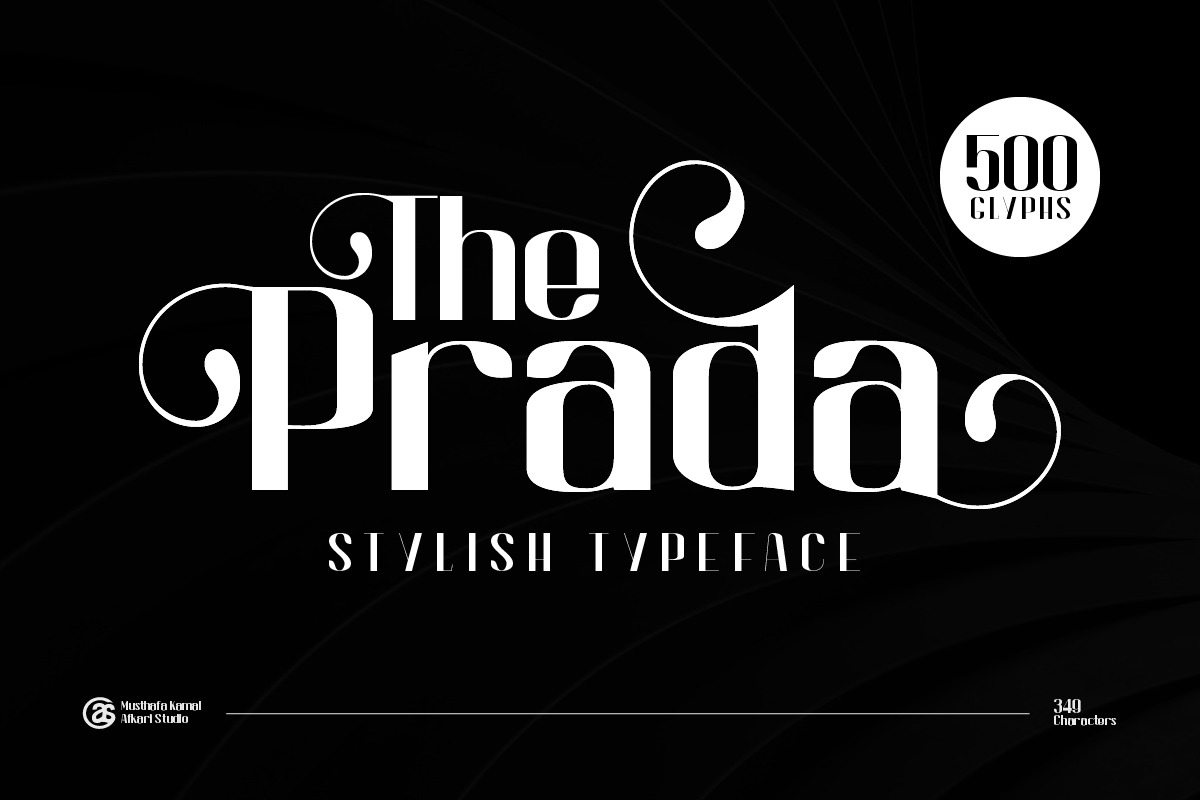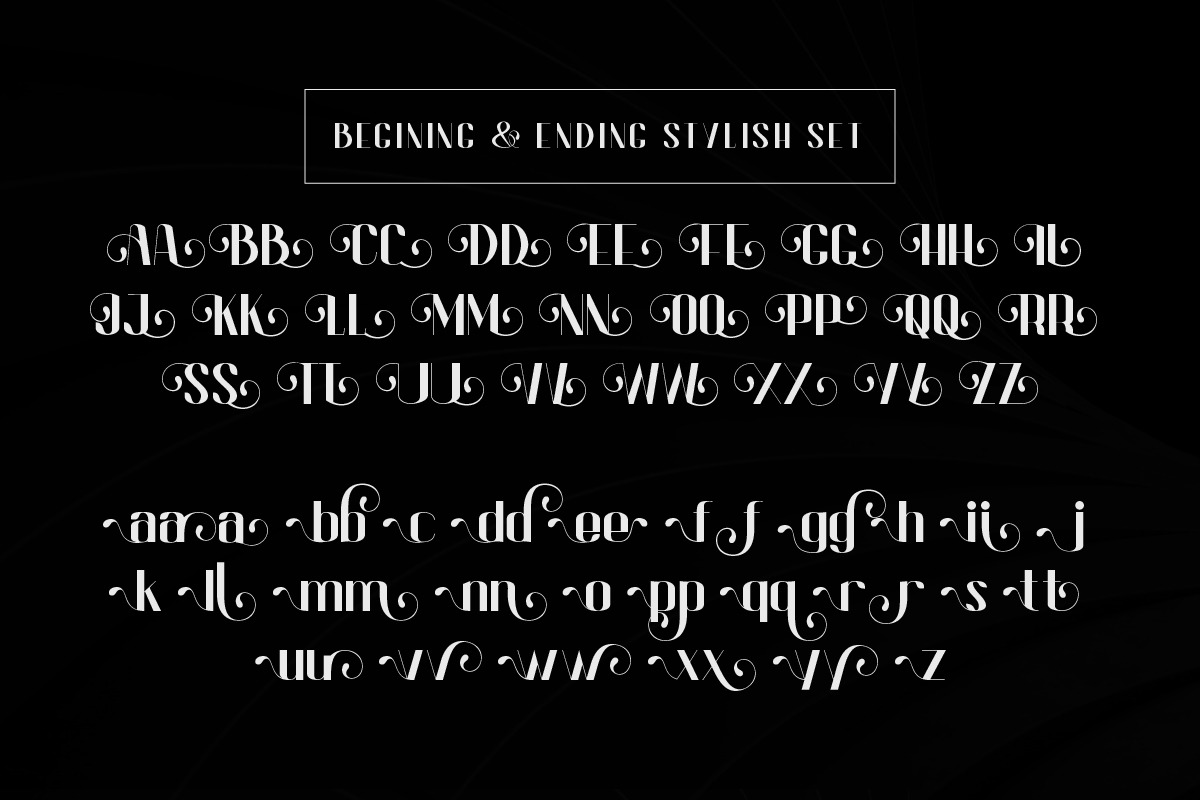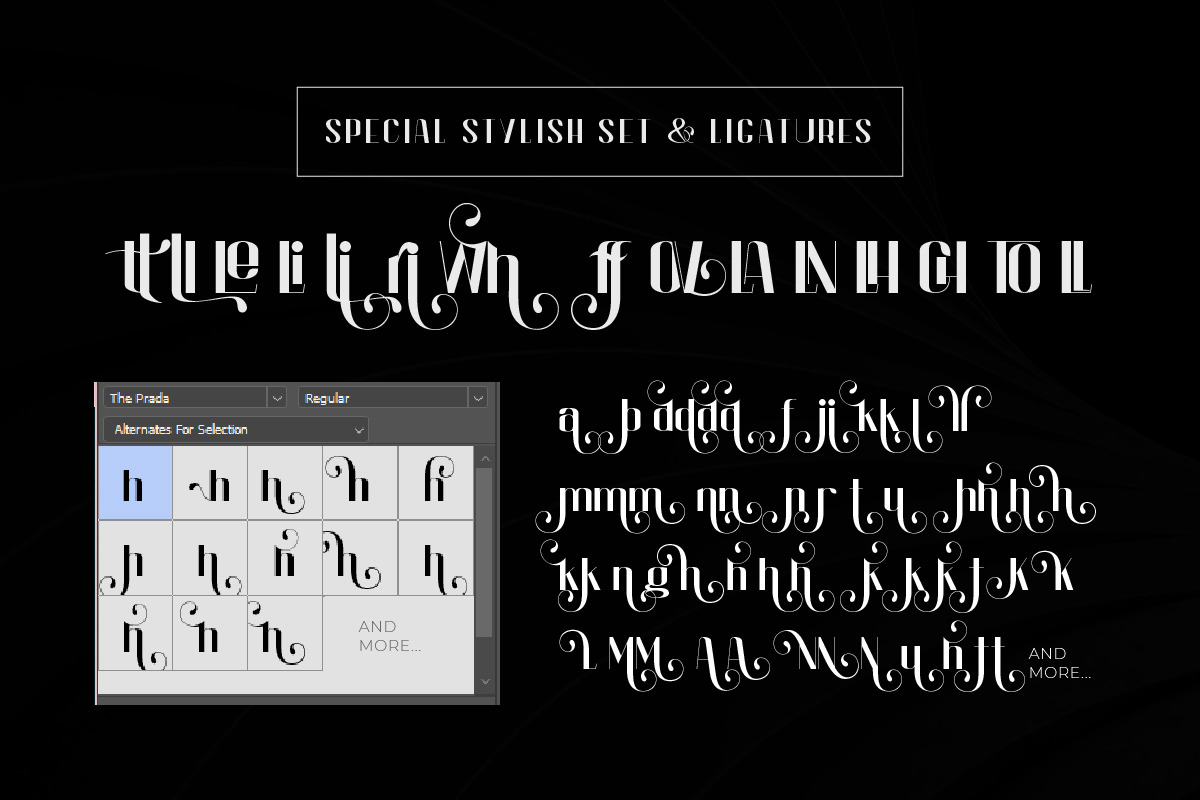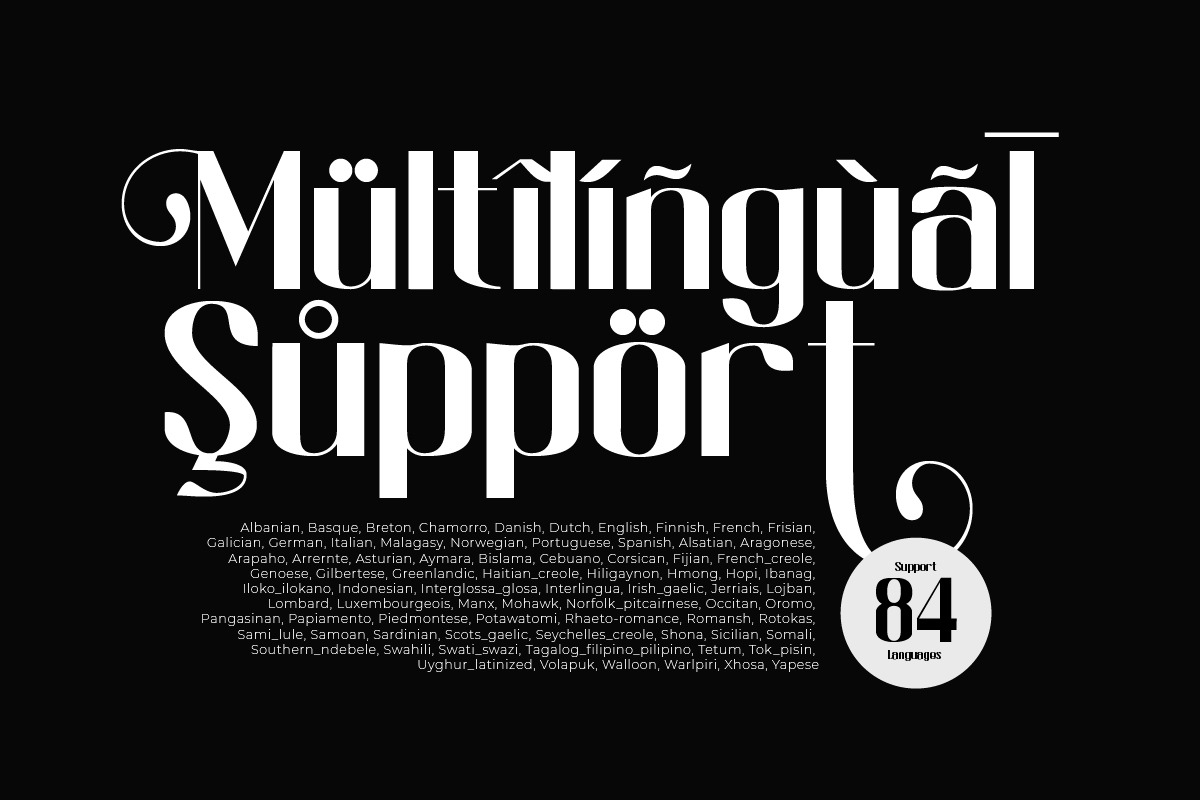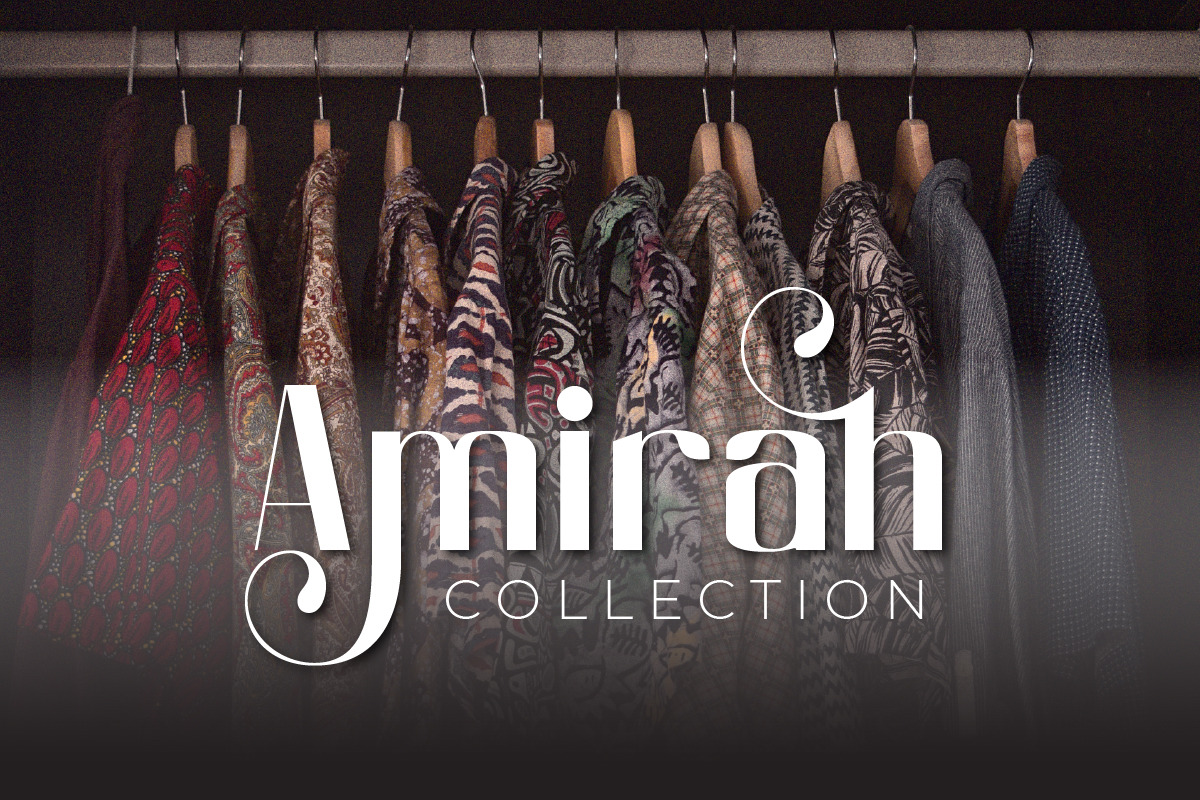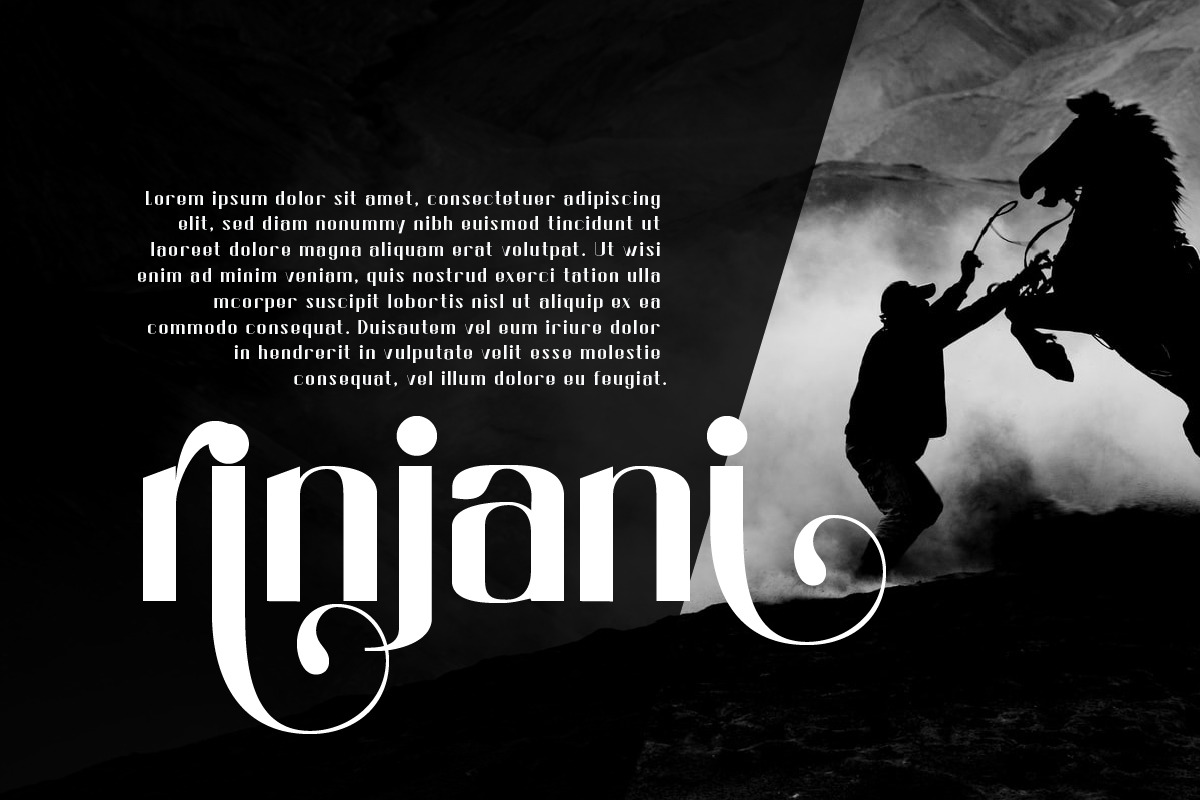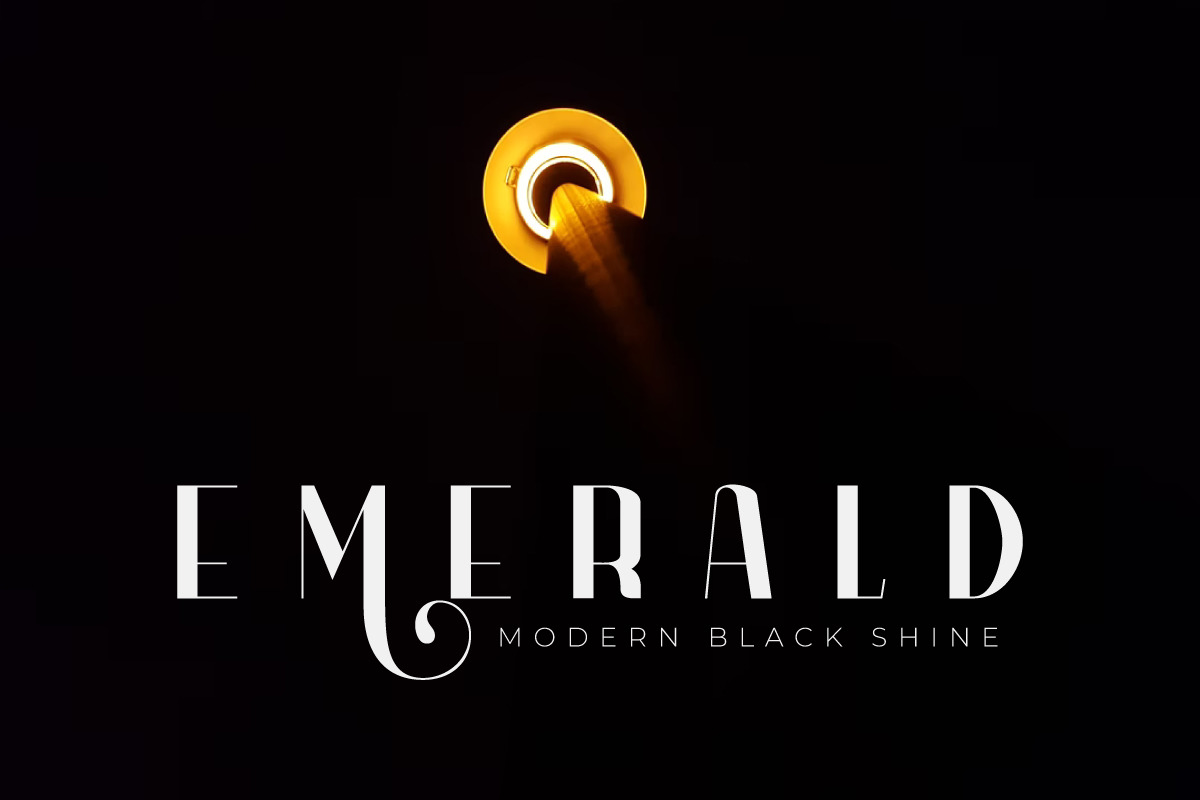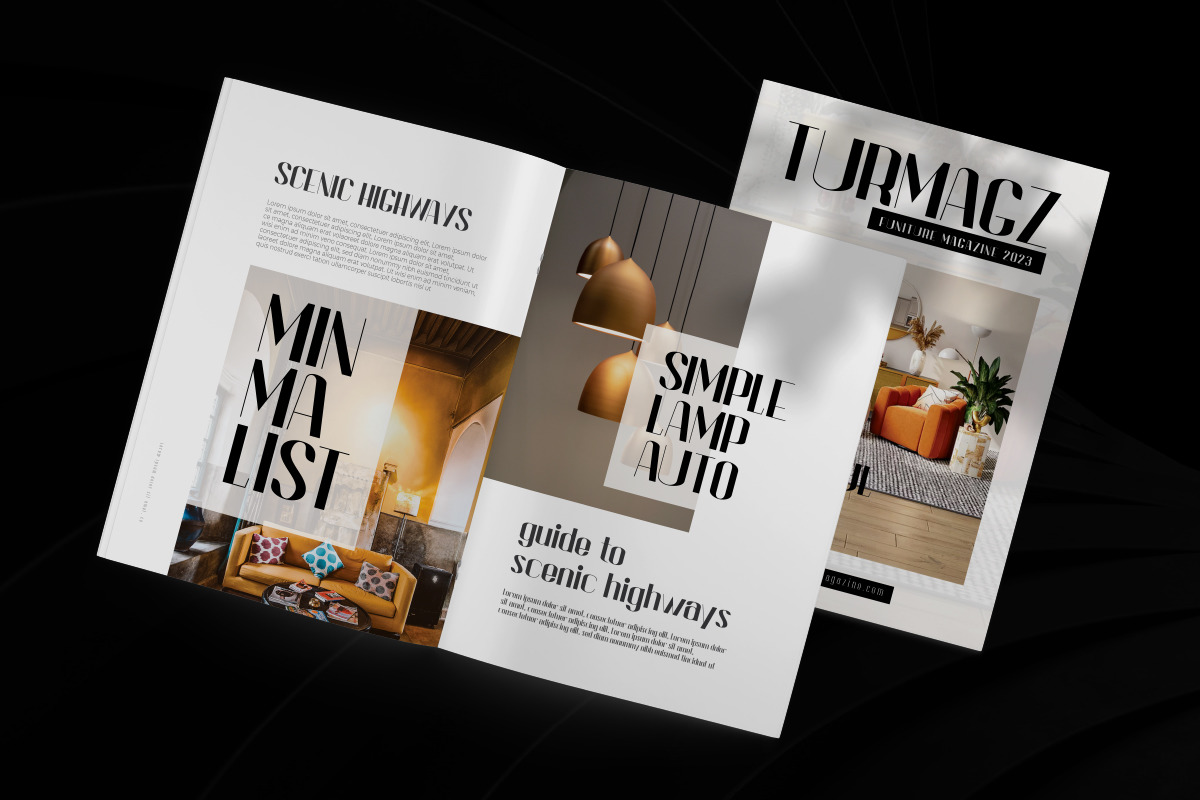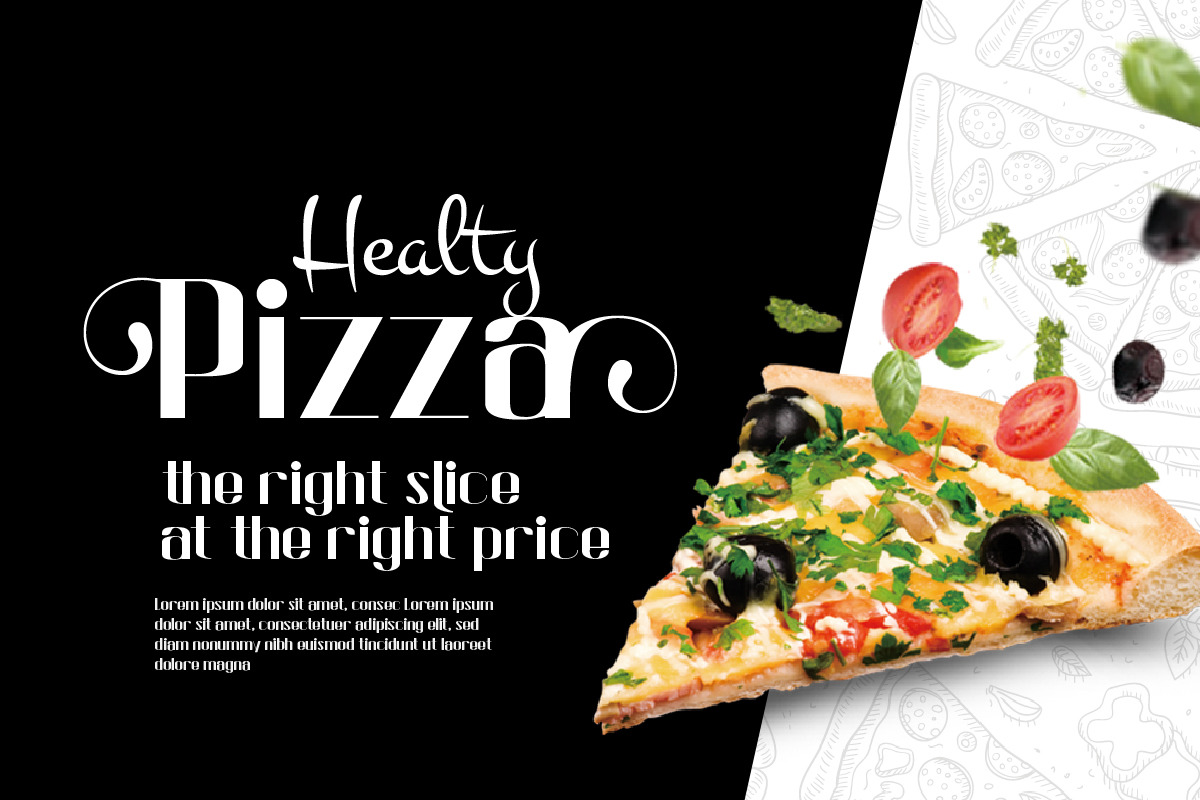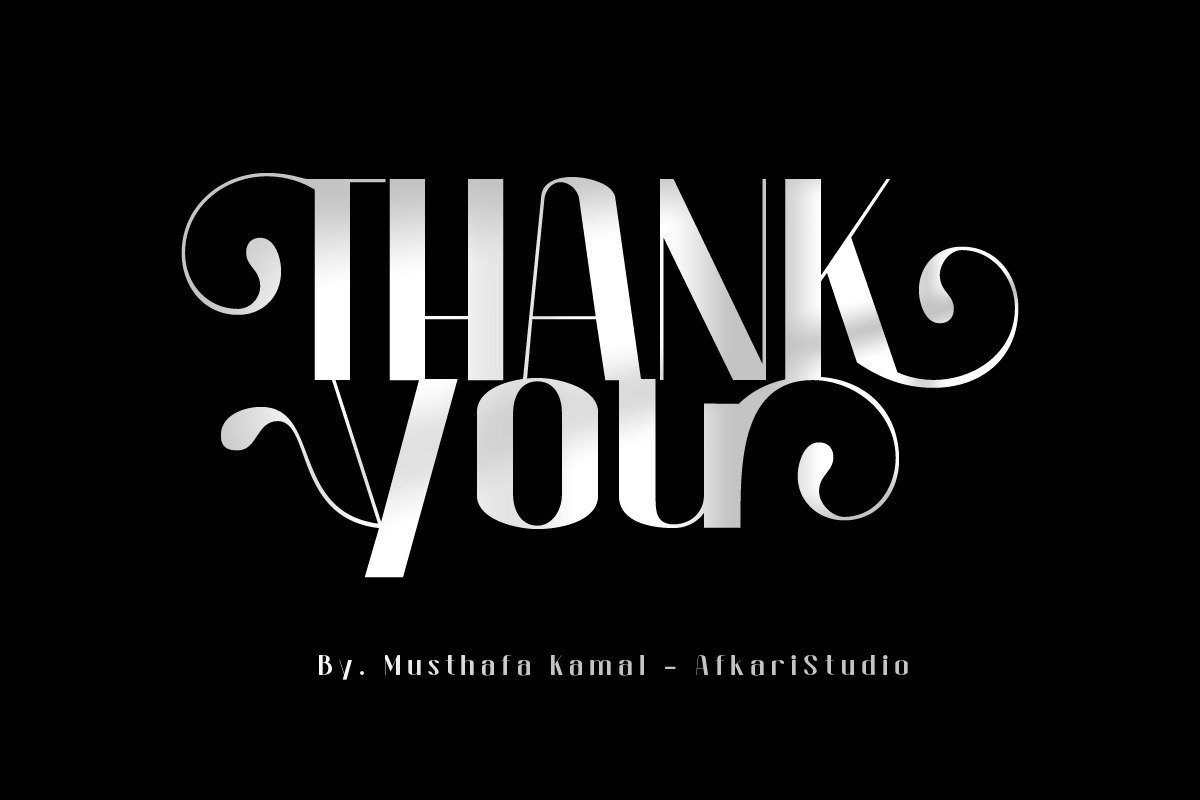
The Prada - Modern Stylish Sans Serif Font
The Prada is a Modern Stylish Sans Serif Font. This font pairs well with modern san serifs and stands strongly on its own beauty alternates characters and stylish ligatures that make your design more conceptual.
The Prada Modern Stylish Sans Serif Font is flexible for many styles of graphic design perfect for logo, headline, magazine, body text, quotes, and more.
Features;
- Uppercase, Lowercase, Number, and Punctuation
- Special alternates and ligatures
- Special Stylish Set for Uppercase & Lowercase
- Mültîlíñgúãl Sùppört for; ä ö ü Ä Ö Ü ß ¿ ¡ etc.